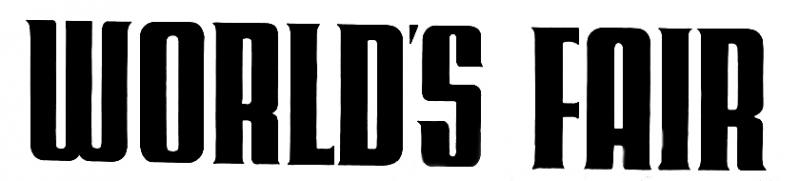
old font question
I found this old font, and think its pretty nice. I couldnt find it using what the font, and I think it might never had been made in to a computer font. has anyone seen this font before? I was thinking about creating a font using this as a base, what would the rules be on this? How do I know if its copyrighted?
Try "Opening Night" by Arthur Vanson, it's a Letterhead font.
Of course it's not that font but it has a similar feel.